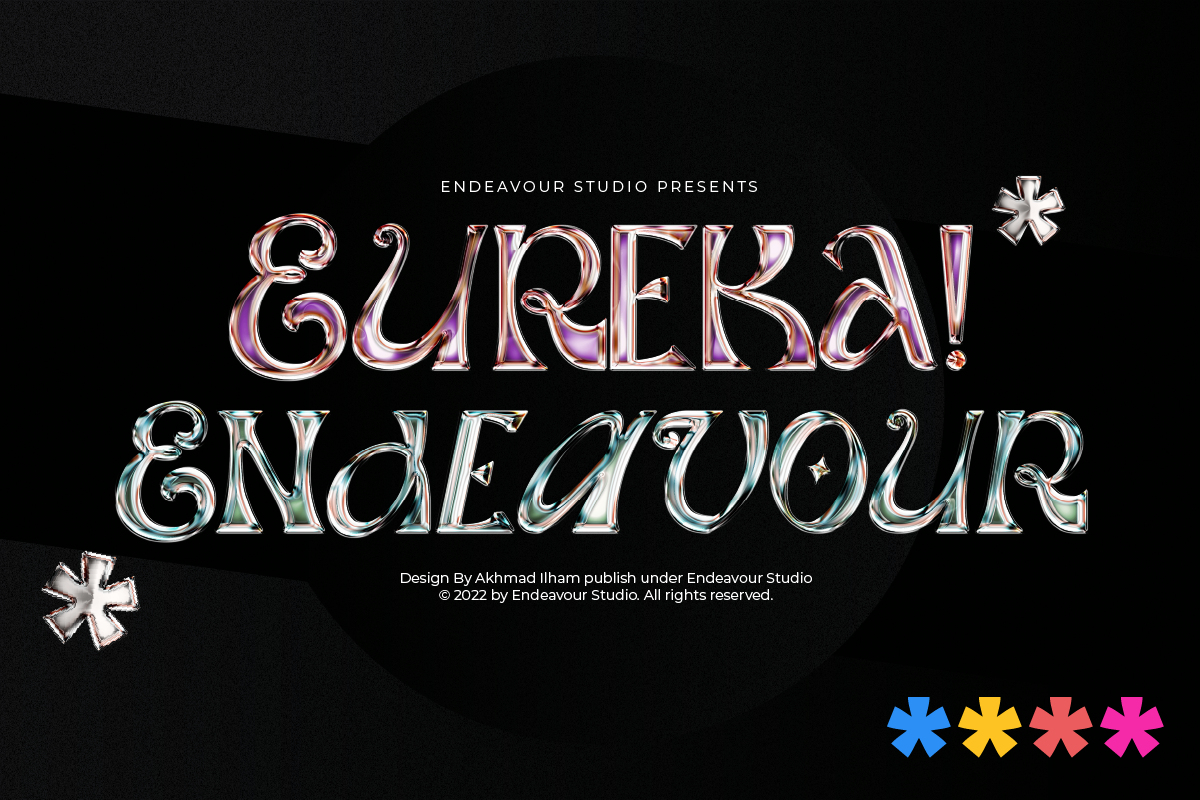
Eureka Serif Display Font Free Download
Eureka Serif Display Font Free Download is a refined and artistic typeface designed to make a bold impression in any display setting. Please note: you must purchase this font for commercial use, but you can test it through a free download. Featuring elegant serifs, dramatic contrast, and a timeless aesthetic, Eureka is perfect for magazine headlines, branding, luxury packaging, and editorial layouts.
Its sophisticated details and strong presence make it an ideal choice when you want your typography to speak with authority and style. Whether you're designing a fashion campaign or a high-end logo, Eureka Serif Display Font Free Download brings a touch of classic elegance with modern versatility. It works smoothly with top design software like Adobe Illustrator, InDesign, and Canva, giving designers total control over their creative vision. Download it now for personal use and discover the stunning visual impact Eureka can bring to your next design.